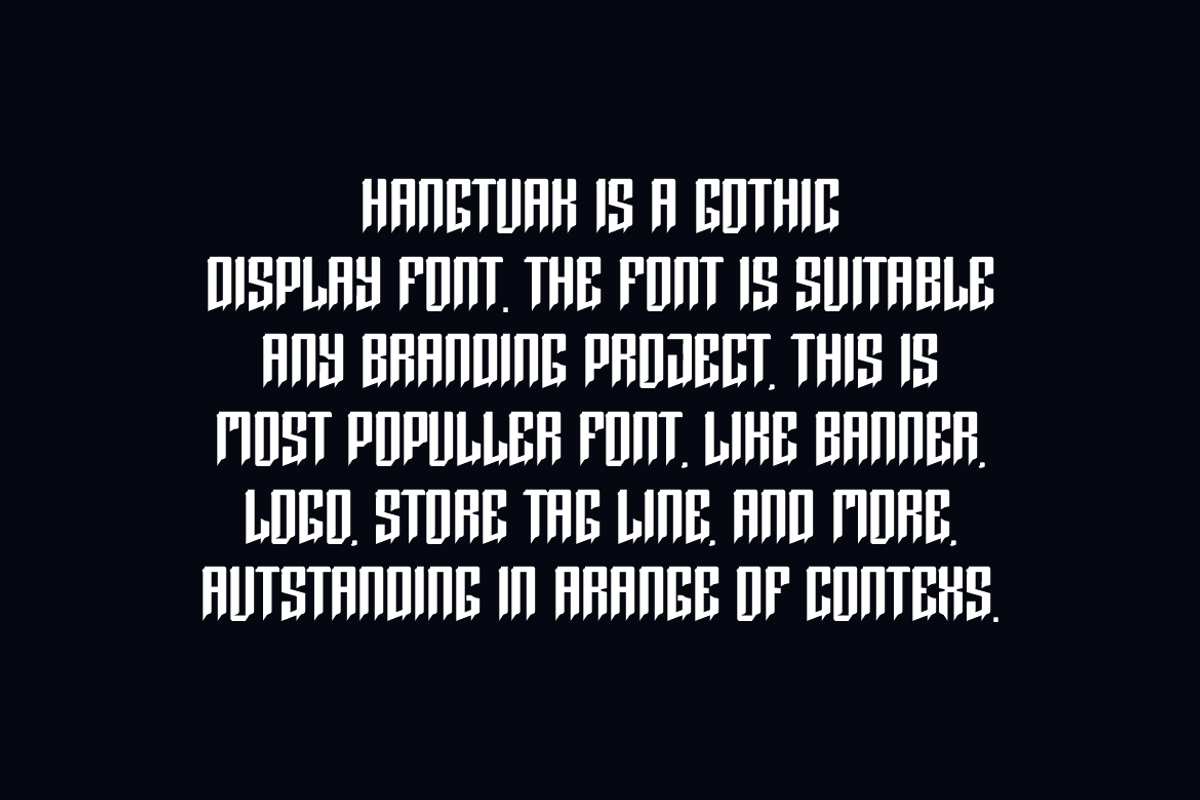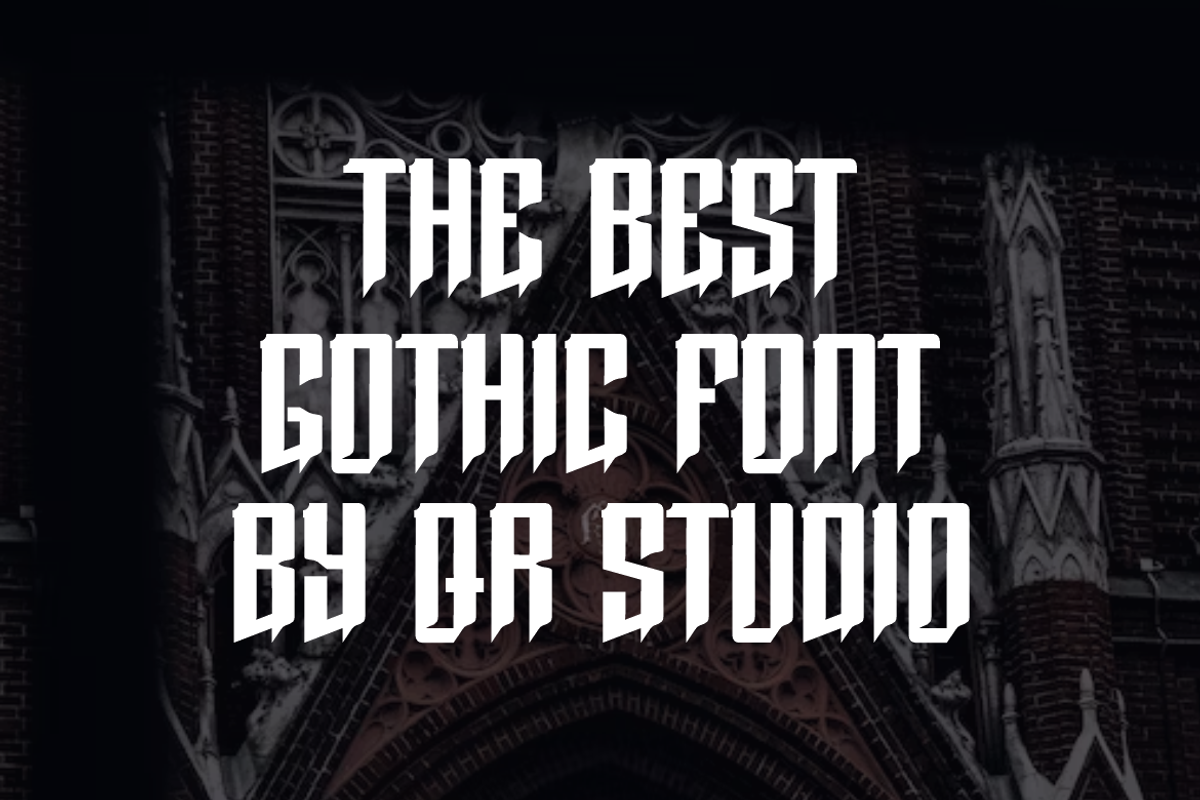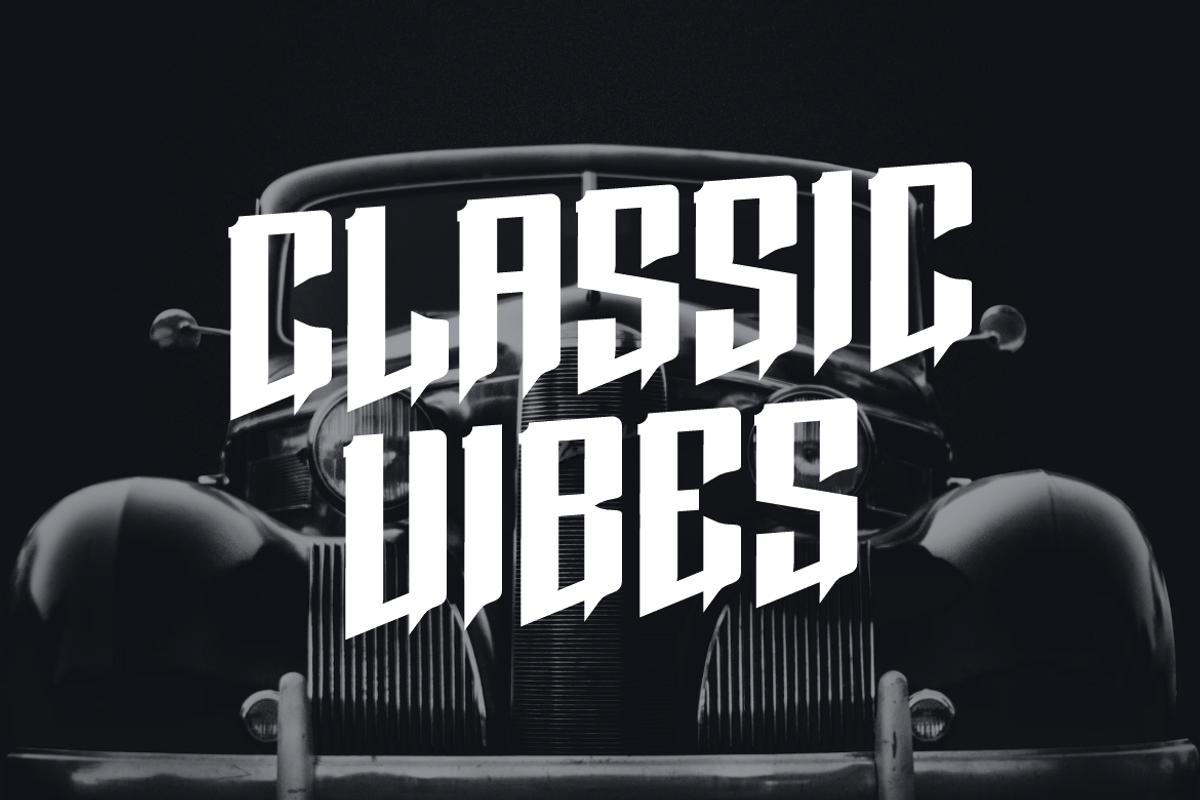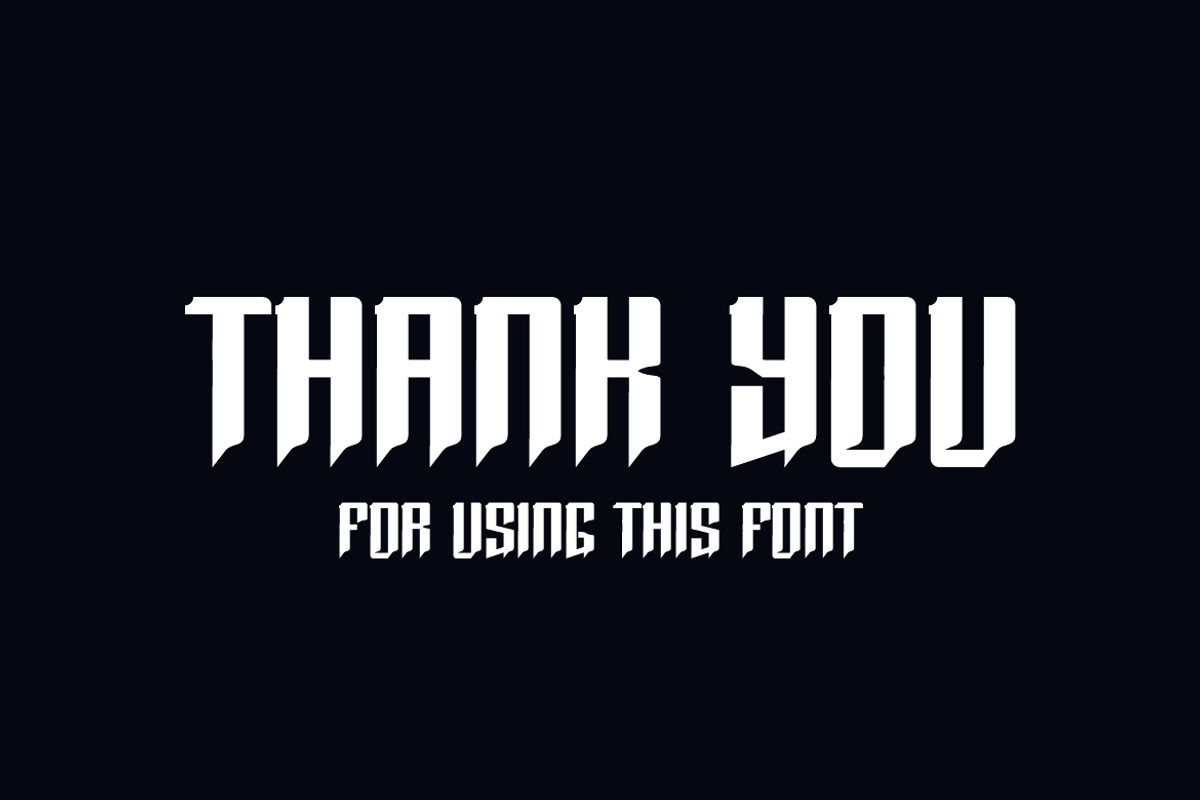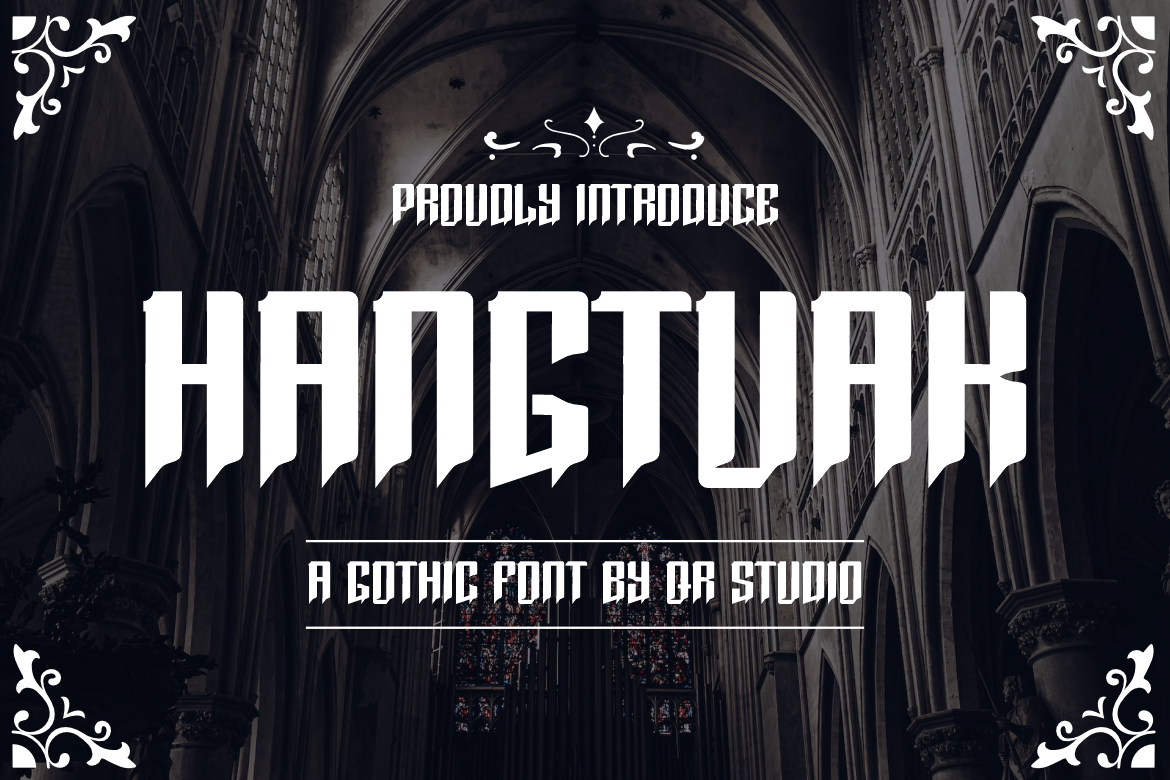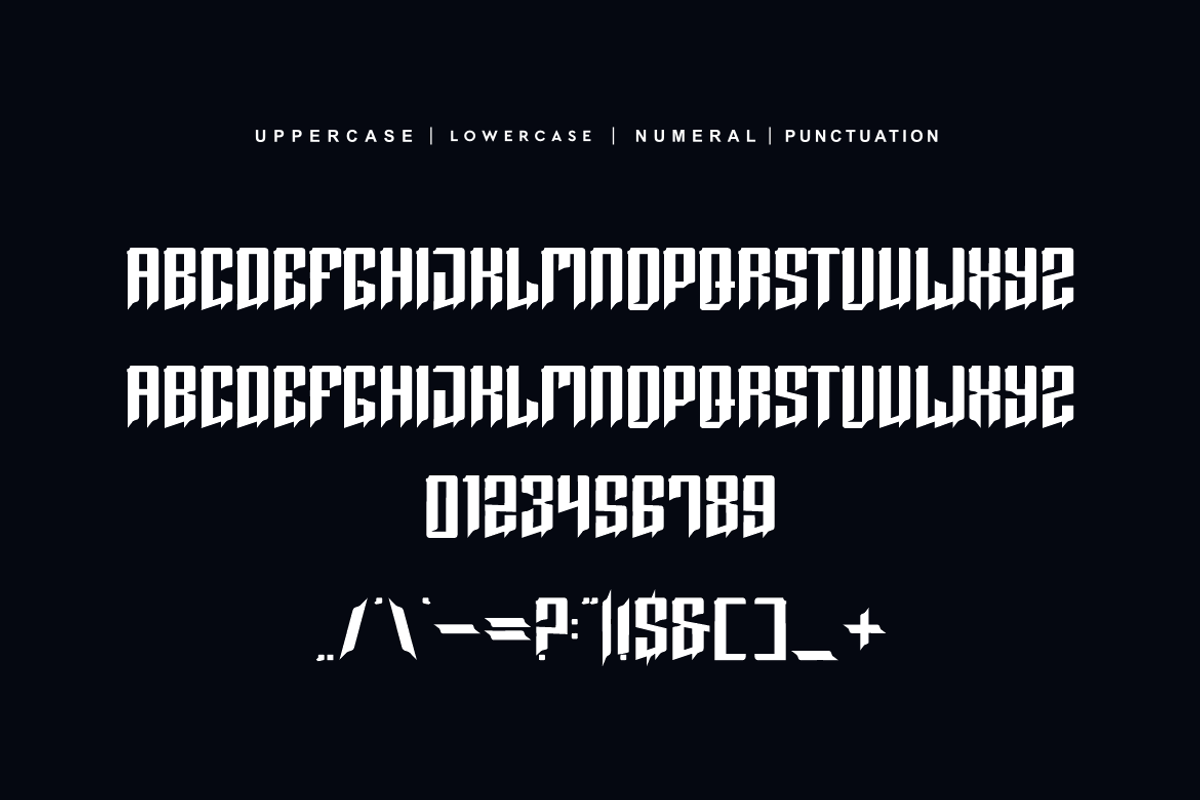
Hangtuak - Gothic & Blackletter Font
Hangtuak - Gothic Font is a blackletter and authentic display font. The font is suitable for any branding project like Metal, funky, Tattoo, poster, logo, sport, and many more. Outstanding in a wide range of contexts.